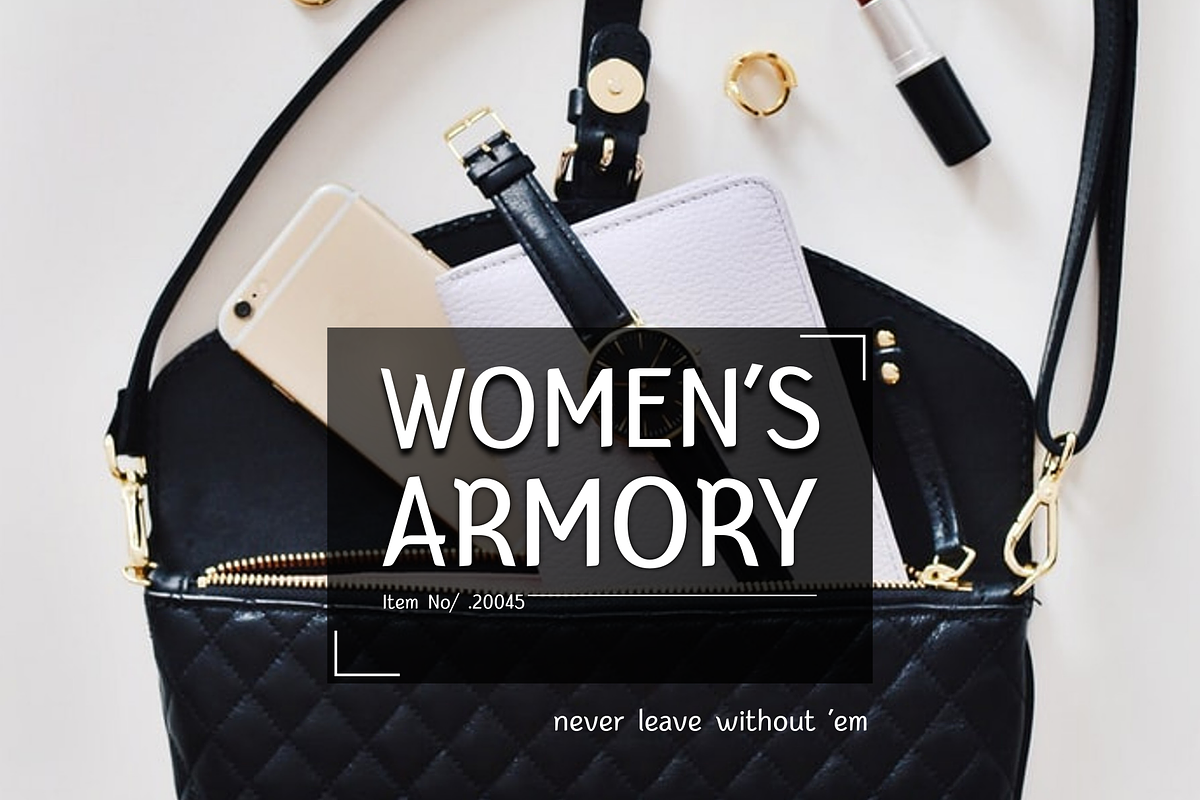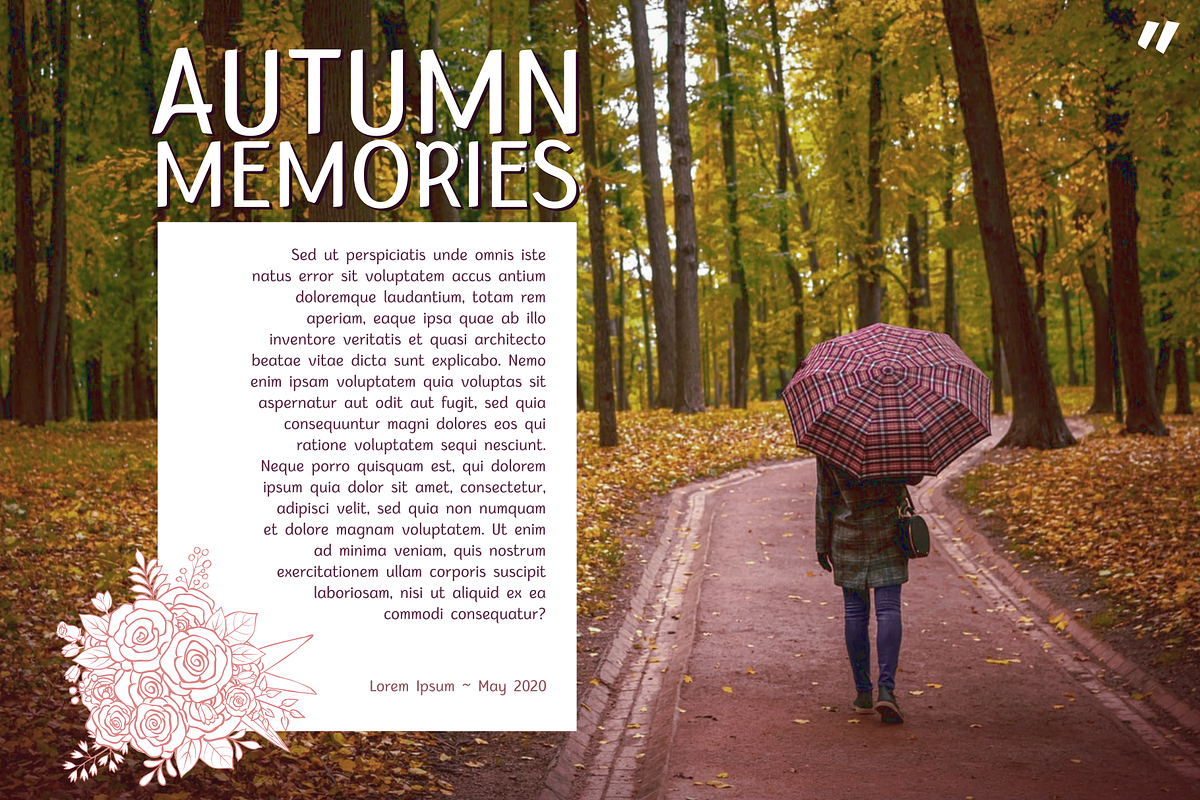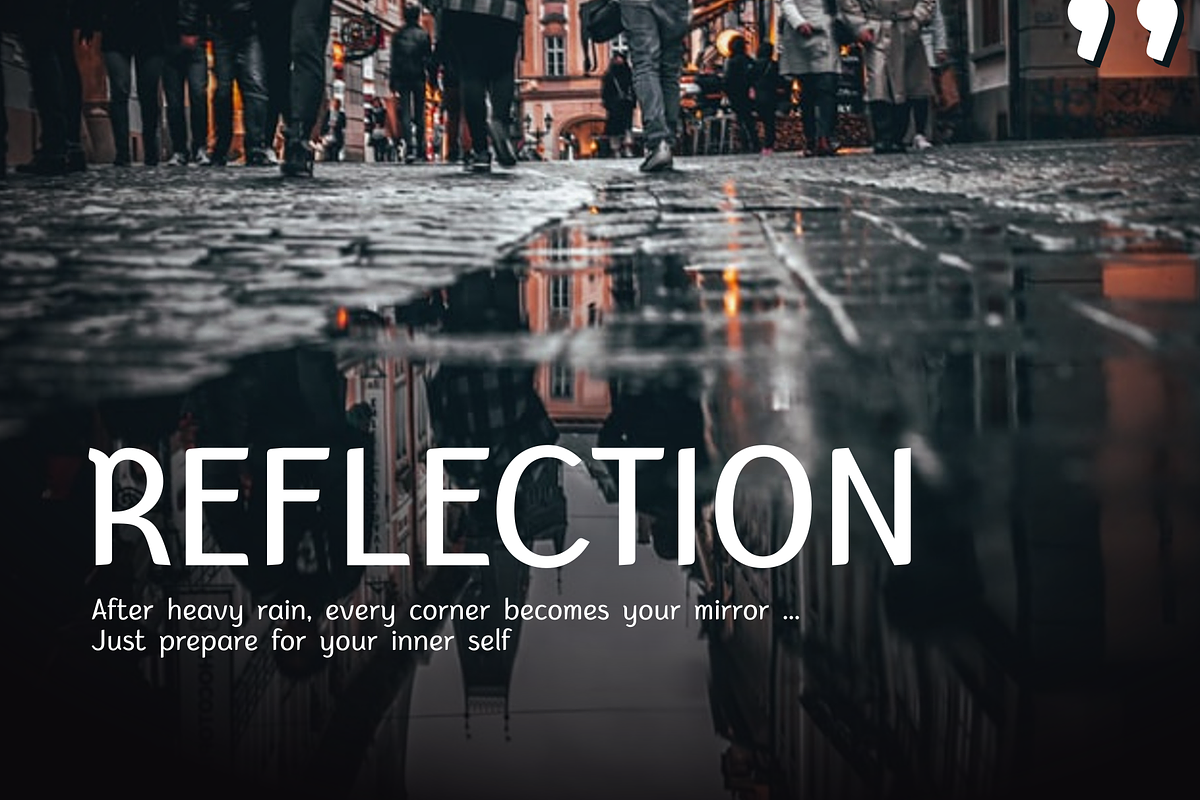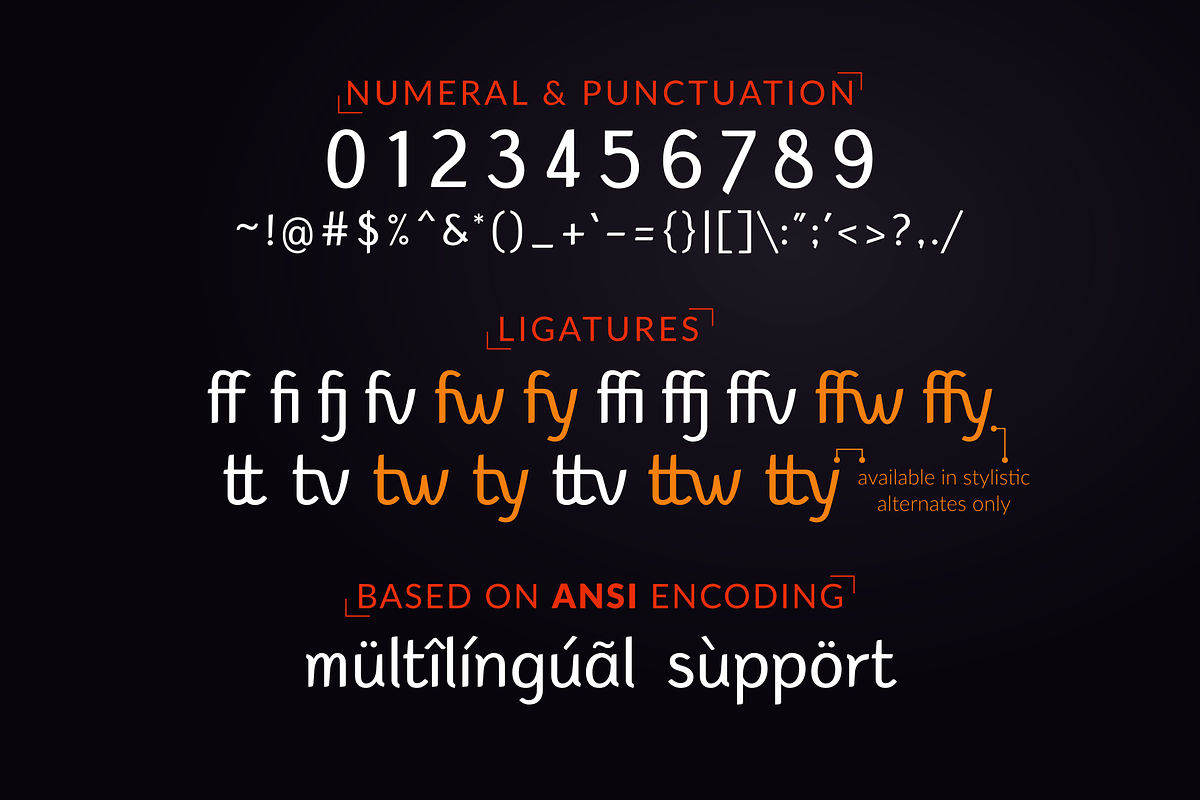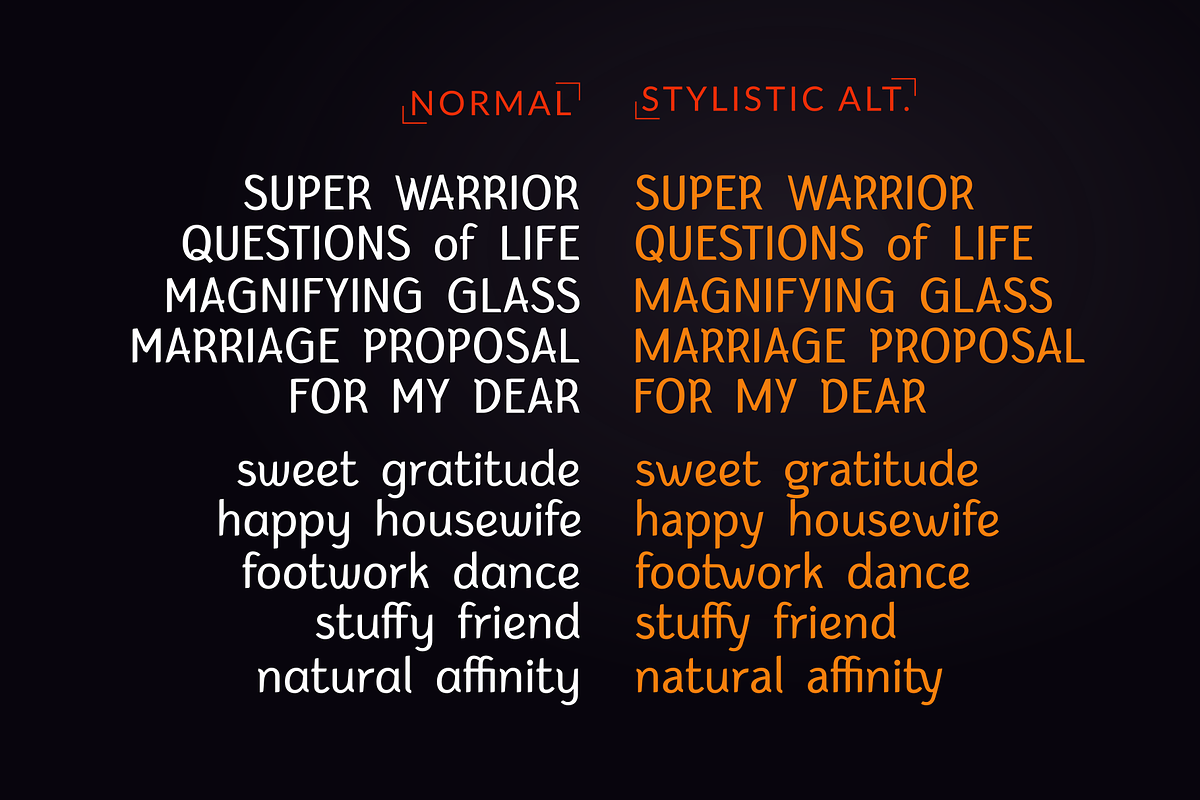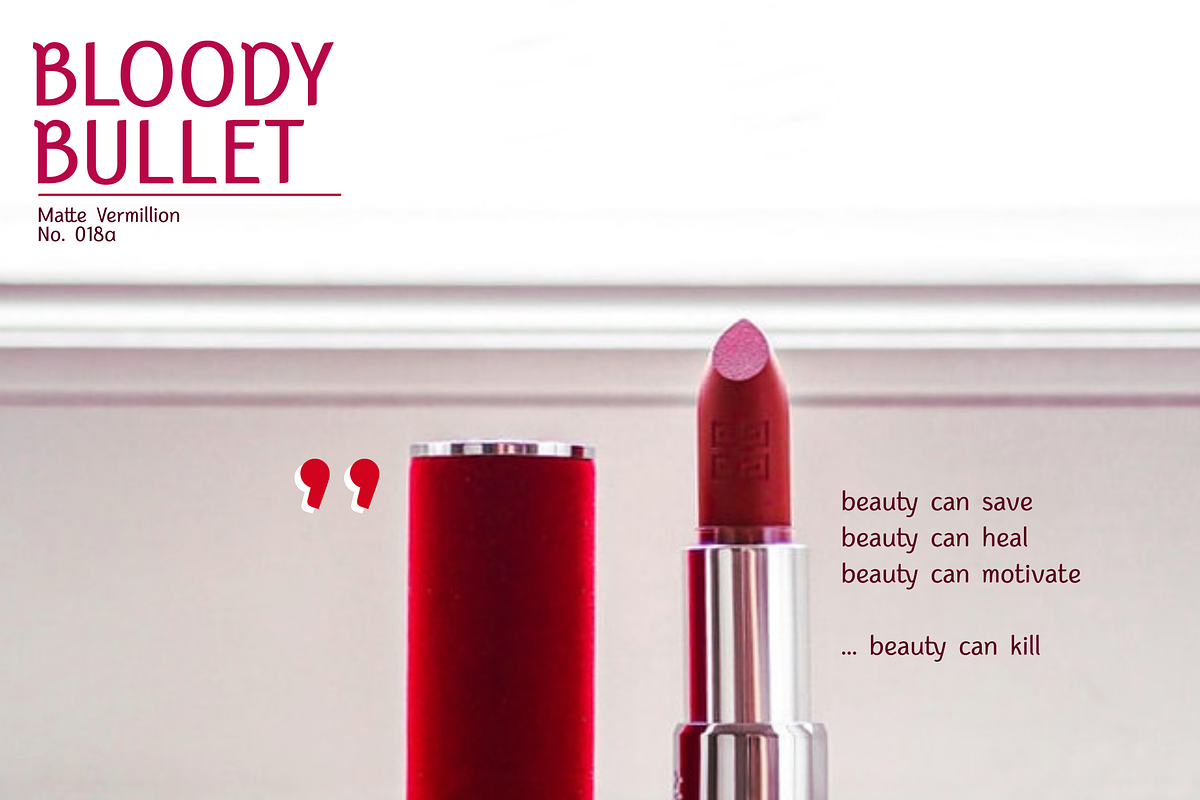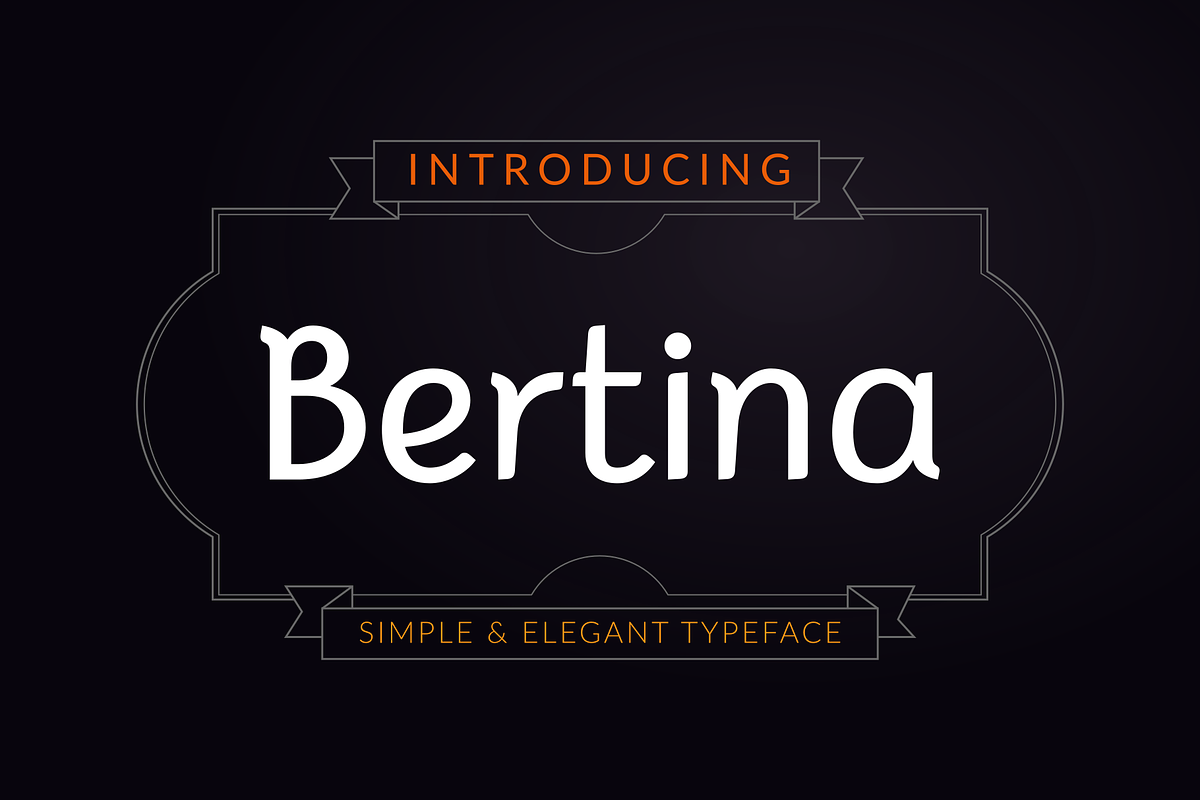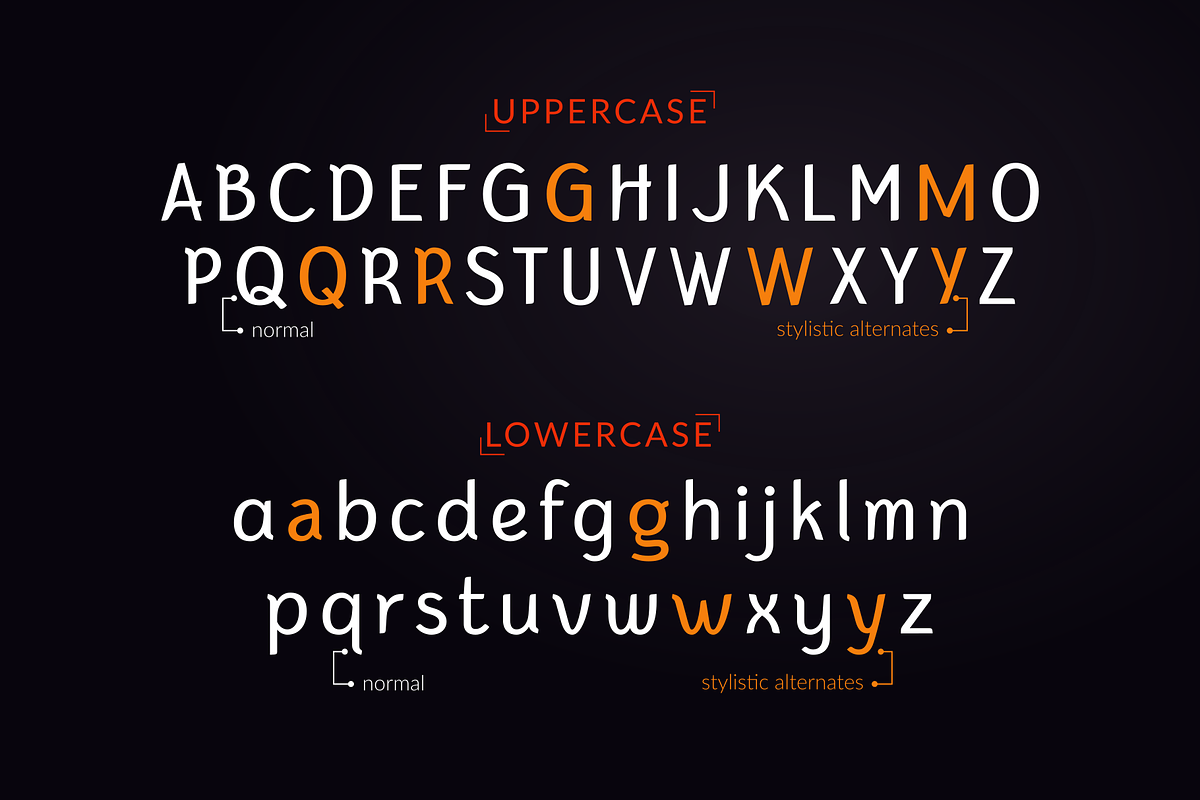
Bertina ~ Simple & Elegant Typeface
611 studio proudly presents Bertina, simple and elegant typeface with feminine touch. It's simplicity makes it best for headlines, letterhead, quotes and even logo.
Open Type feature (stylistic alternates) for flexible usage
Full glyph based on ANSI encoding